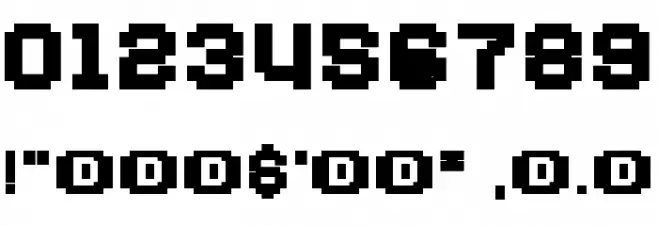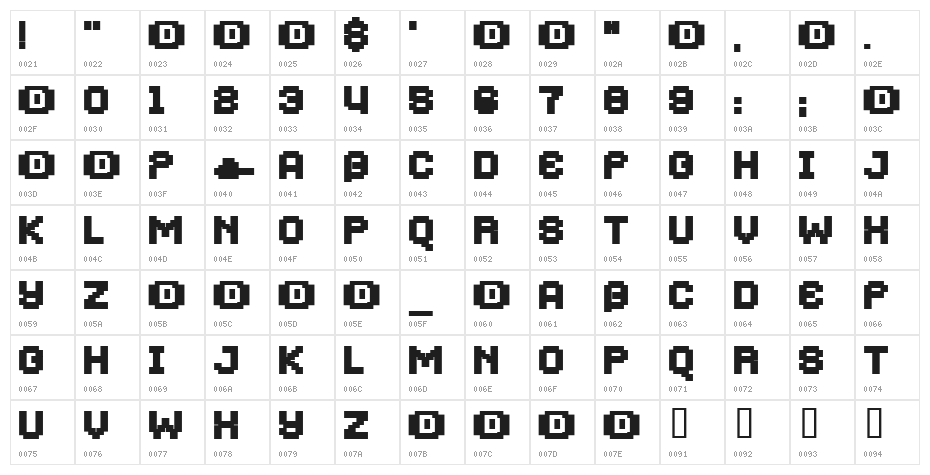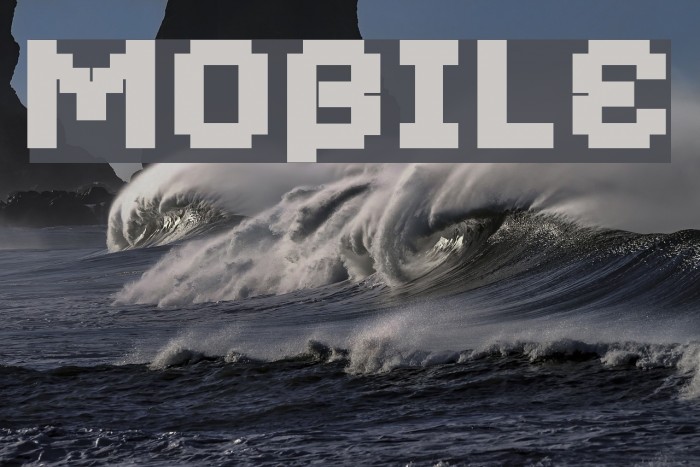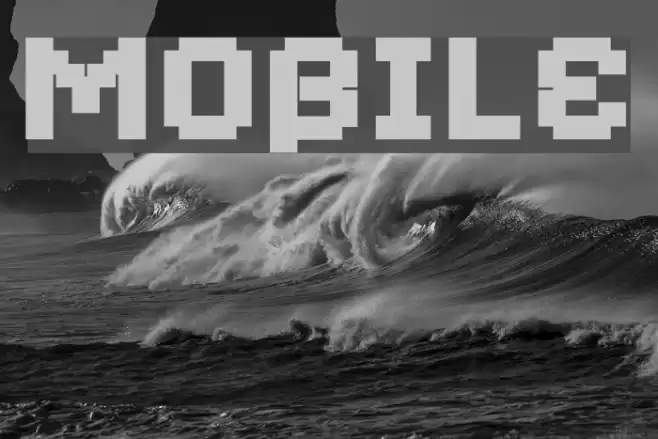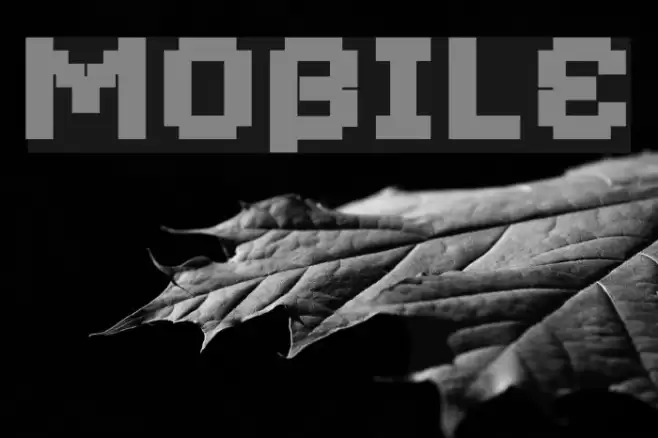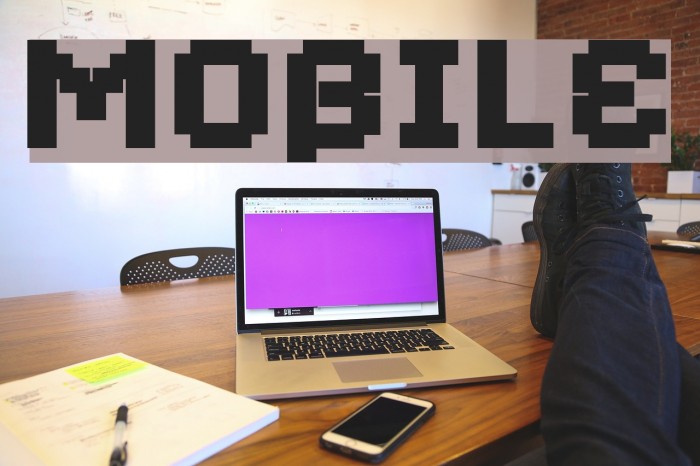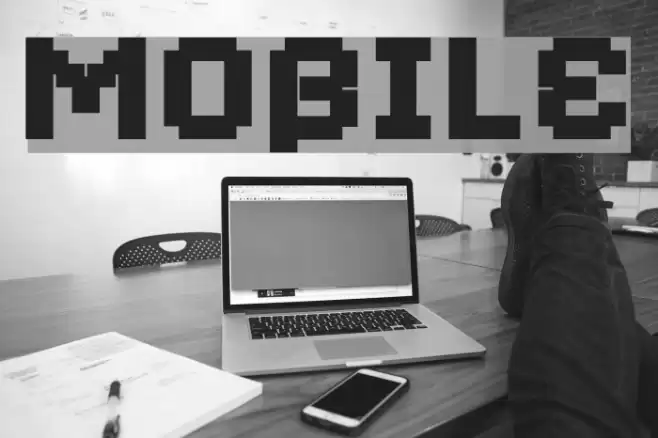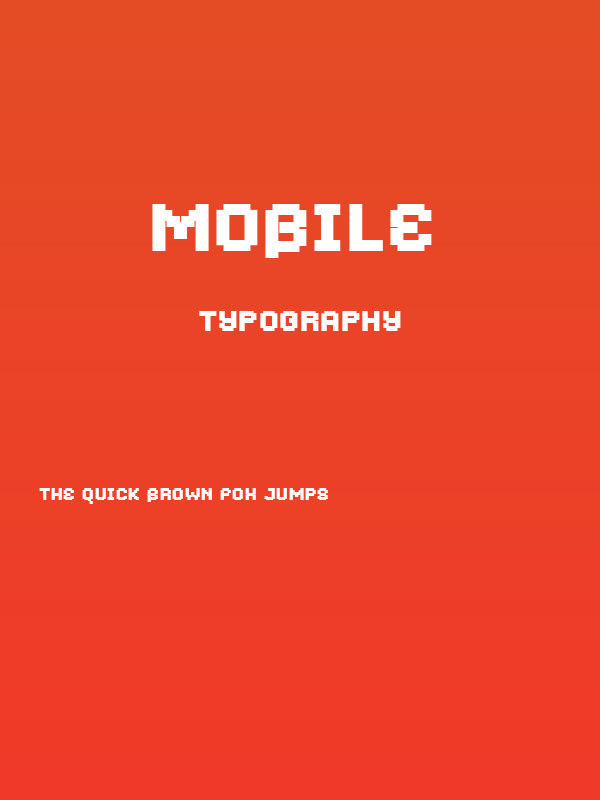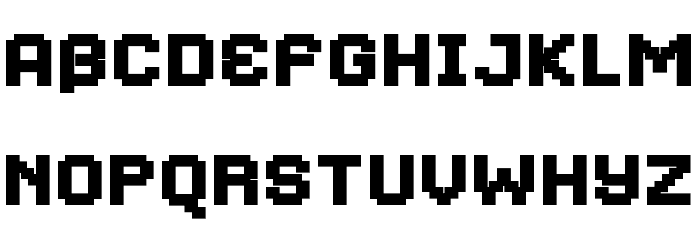
Mobile Font
This font features a bold, pixelated style reminiscent of early digital displays and retro video games. Each character is constructed with a blocky, grid-like appearance, giving it a distinctly digital and geometric look. The uppercase and lowercase letters maintain a consistent height, contributing to a uniform appearance across the text. The numbers and special characters follow the same pixelated design, ensuring a cohesive aesthetic. This font's simplicity and clarity make it highly legible, even at smaller sizes, while its unique style adds a nostalgic touch to any project.
| Use Case | Headlines, Logos, Digital Displays |
| Proposed Projects | Ideal for retro-themed designs, video game graphics, digital art projects, and any creative work seeking a nostalgic, digital look. |